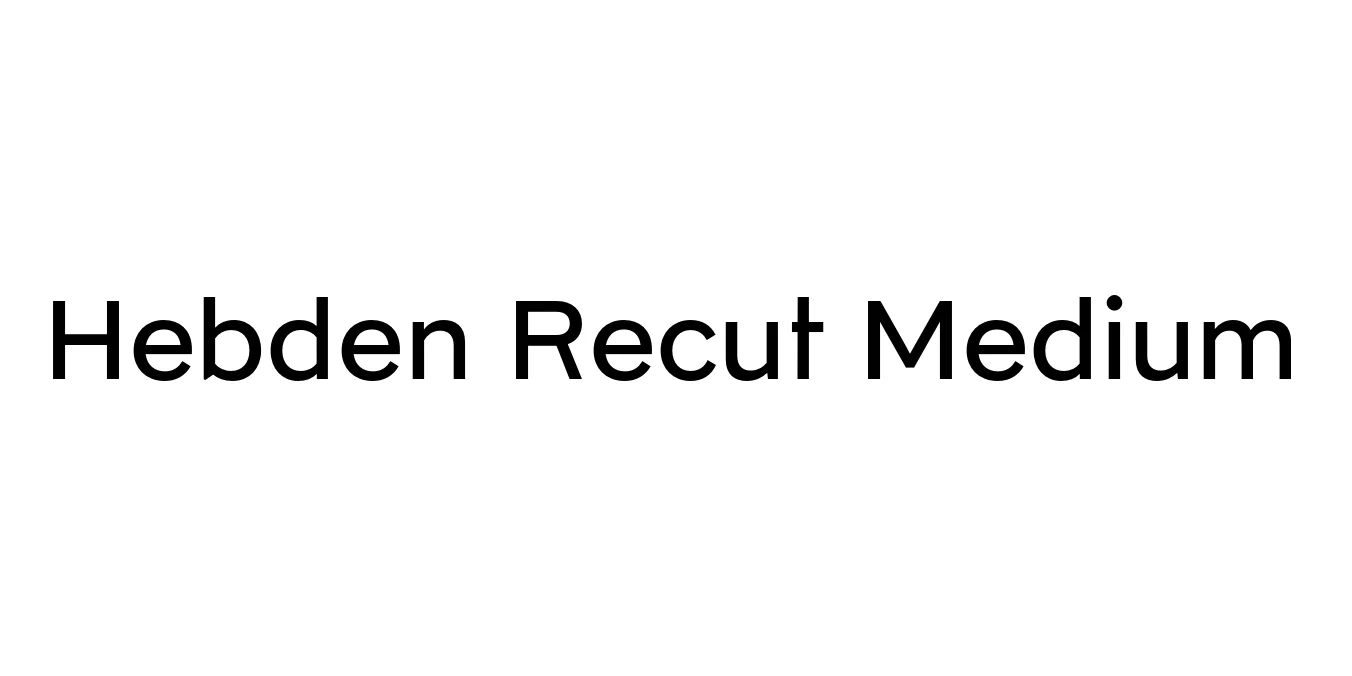
Hebden Recut Medium
Designed by Ben Blom (M-B Creative)
Hebden Recut Medium is a sophisticated sans-serif typeface inspired by the unique hand-painted enamel signage found in the town of Hebden Bridge, West Yorkshire. Developed by M-B Creative, this font serves as a modern digital revival that captures the industrial British heritage and the utilitarian aesthetic of mid-century railway and municipal lettering. It bridges the gap between historical preservation and contemporary graphic design needs.
The medium weight offers a perfect balance of readability and character, making it ideal for branding and editorial projects that require a touch of nostalgia without feeling dated. Its clean geometry and humanist undertones ensure clarity across both print and digital platforms, maintaining the integrity of the original 19th-century source material while providing the versatility needed for modern UI and advertising layouts.
Hebden Recut Medium Best Uses
Perfect for creating timeless, heritage-inspired brand identities.
Excellent for physical wayfinding and municipal-style displays.
Highly effective for headers and sub-headers in lifestyle magazines.
Ensures clean legibility for modern professional interfaces.